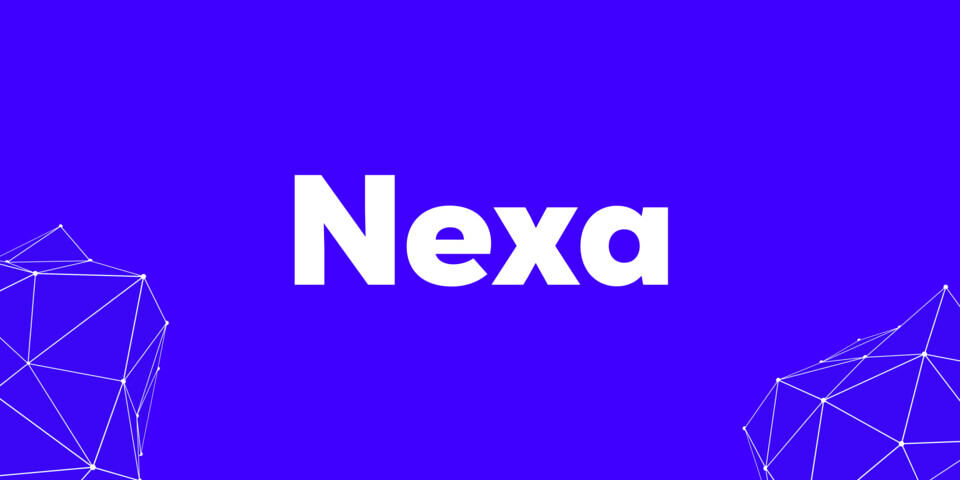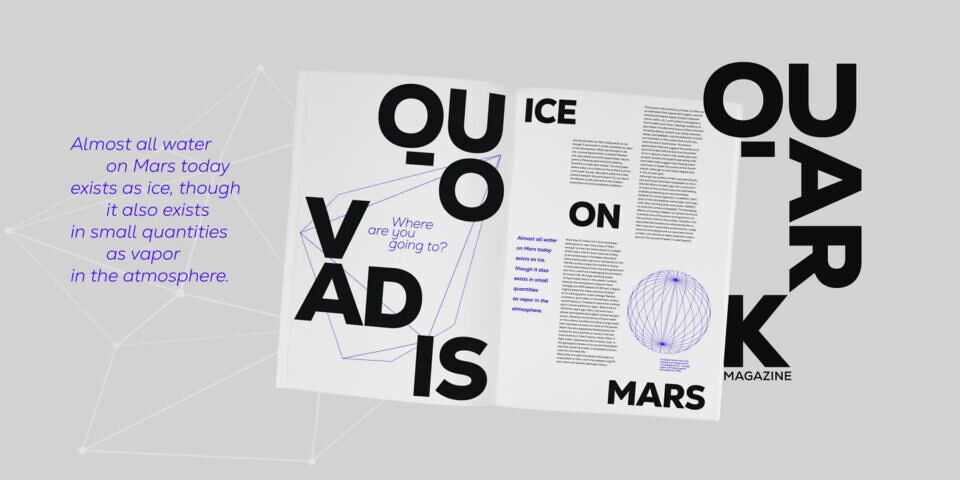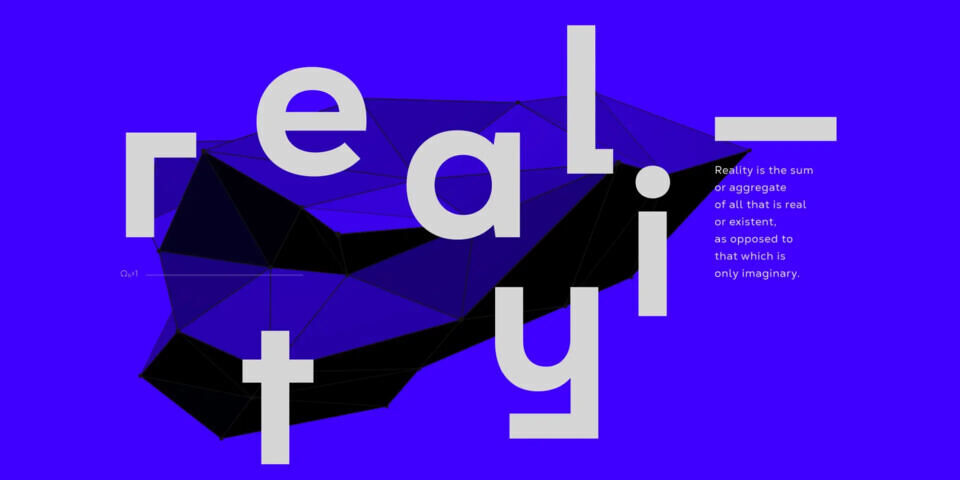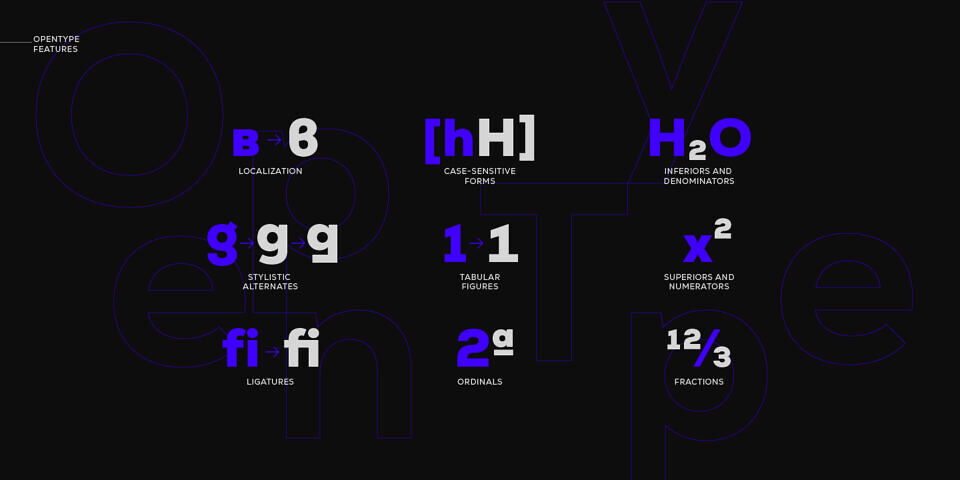
The Nexa Font Family is a modern geometric sans-serif typeface developed by Fontfabric. Fundamentally based on a circle, its design aimed for a simple, recognizable, and contemporary appearance, quickly establishing itself as a best-selling font. Characterized by clean-cut geometric forms and optimized kerning, Nexa has undergone significant updates to enhance its versatility and legibility across various applications.
Nexa is a geometric sans-serif typeface designed for branding and corporate identity, website, and app UI, advertising, posters, motion graphics, and product packaging. Its clean-cut geometric forms make it an excellent choice for designers, brands, and anyone seeking a versatile and highly legible sans-serif typeface that can adapt to a wide range of contemporary design projects.